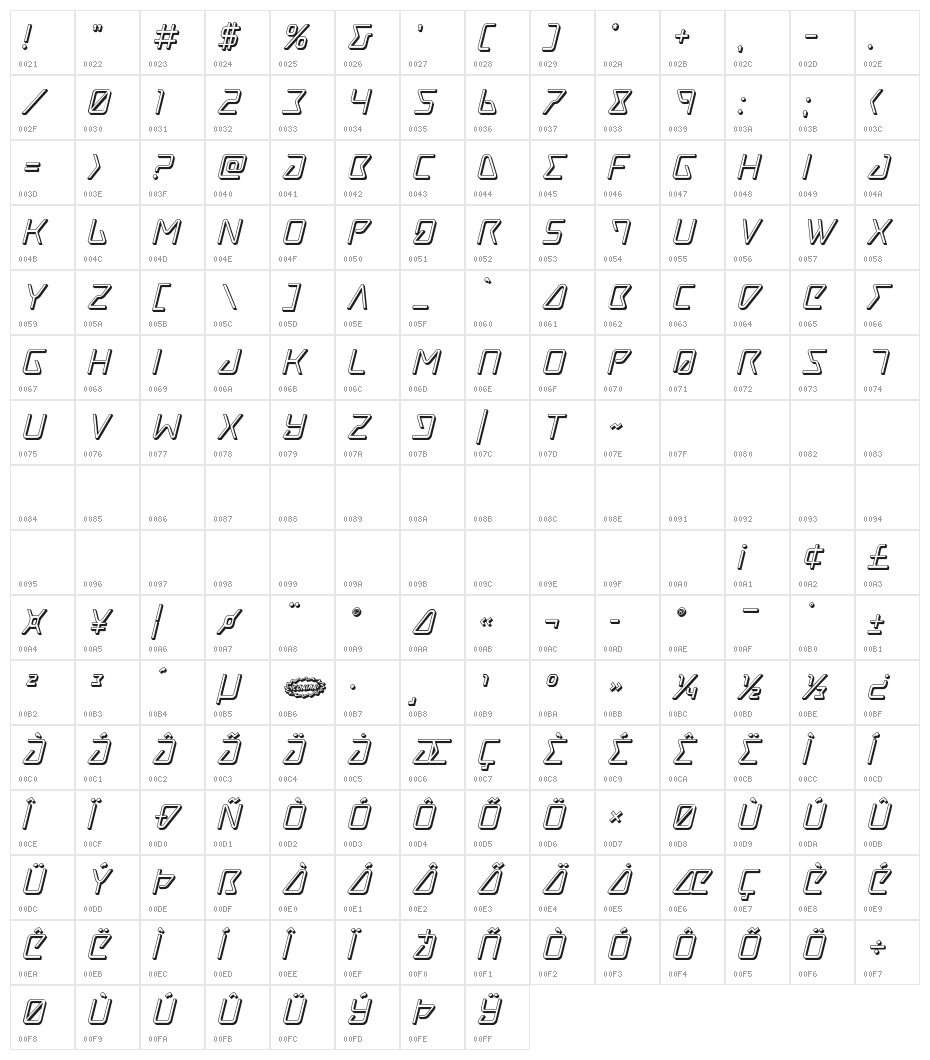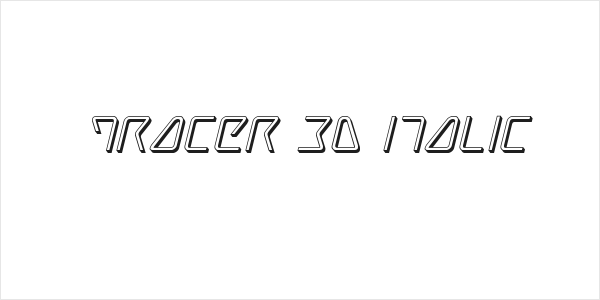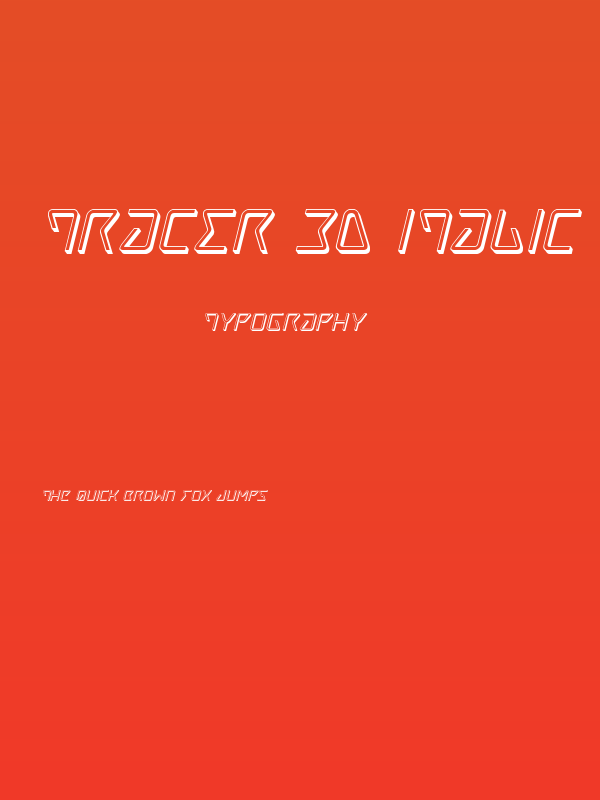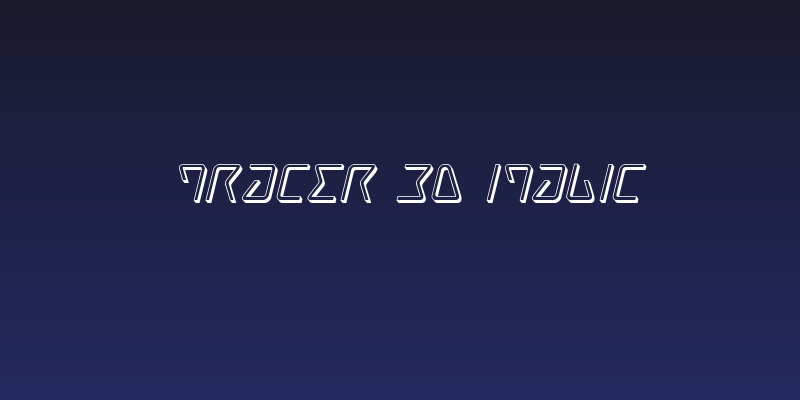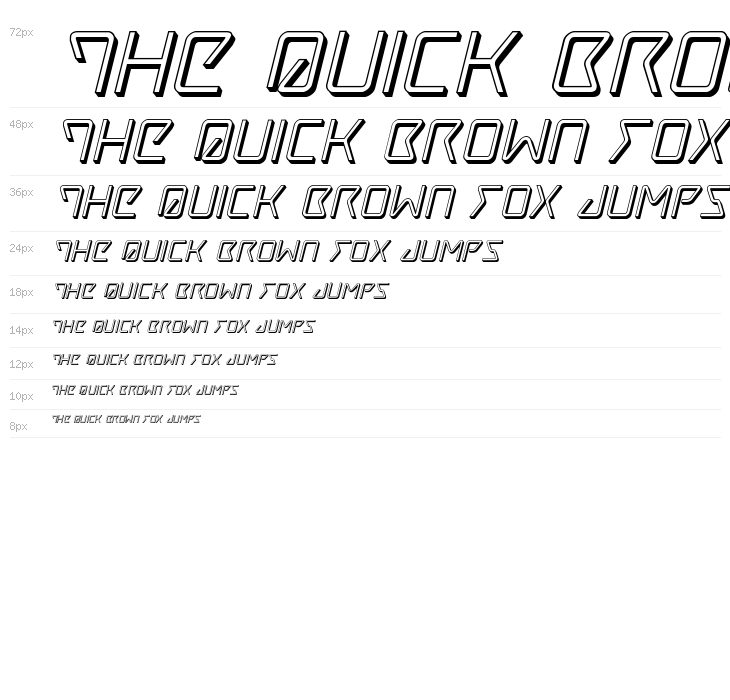
Tracer 3D Italic Font
Tracer 3D Italic Description
This font features a dynamic and futuristic 3D design, characterized by its angular and geometric shapes. The letters are outlined with a double line, creating a sense of depth and movement. The italic slant adds to its energetic and forward-leaning appearance, making it ideal for modern and tech-oriented projects. The characters are evenly spaced, ensuring readability while maintaining a unique style. The numbers and special characters follow the same design principles, providing a cohesive look across all elements.
| Proposed Projects | Ideal for tech branding, video game titles, futuristic posters, and sci-fi themed designs. |